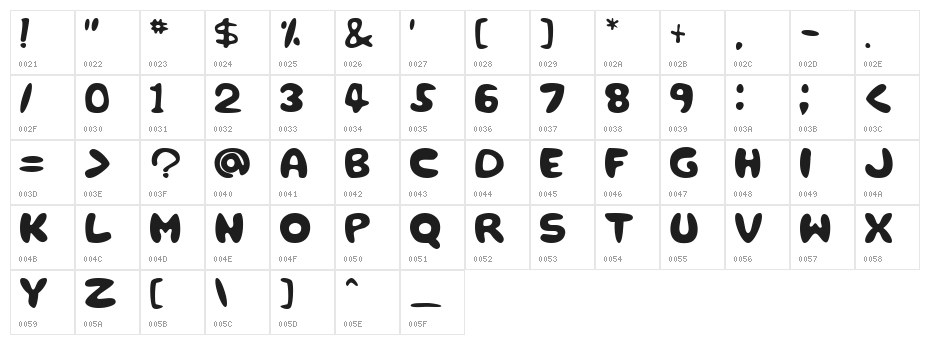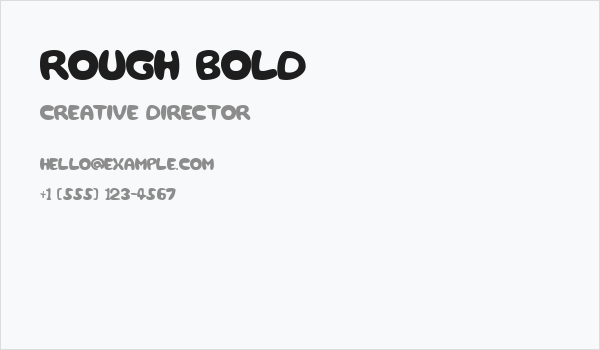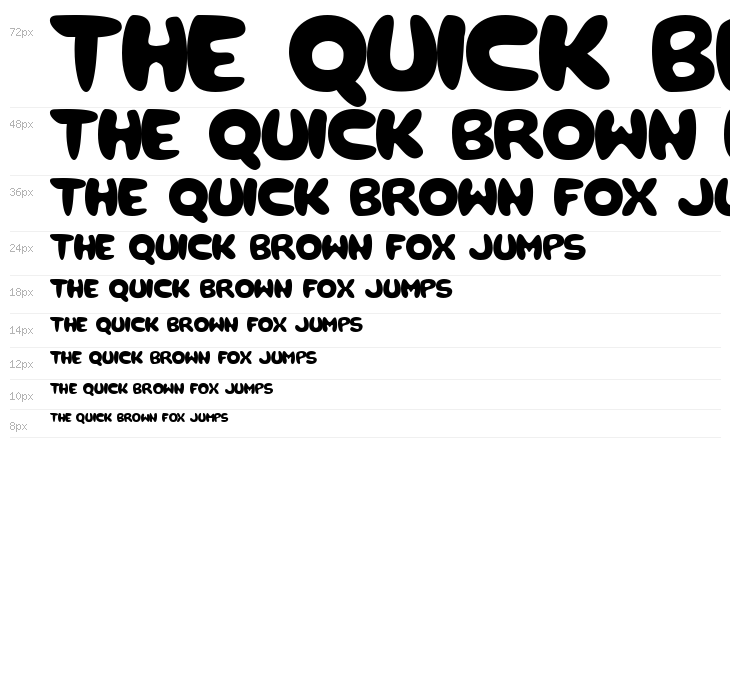
rough Bold Font
rough Bold Description
This font features a bold, playful style with rounded, thick strokes that give it a friendly and approachable appearance. The characters are uniformly bold, with a consistent thickness that maintains readability while adding a touch of whimsy. The rounded edges and smooth curves create a sense of movement and energy, making it ideal for projects that require a lively and engaging typeface. The font's design is both modern and fun, suitable for a variety of creative applications.
| Overall Style | Playful, Modern |
| Proposed Projects | Ideal for children's books, playful branding, posters, and social media graphics. |